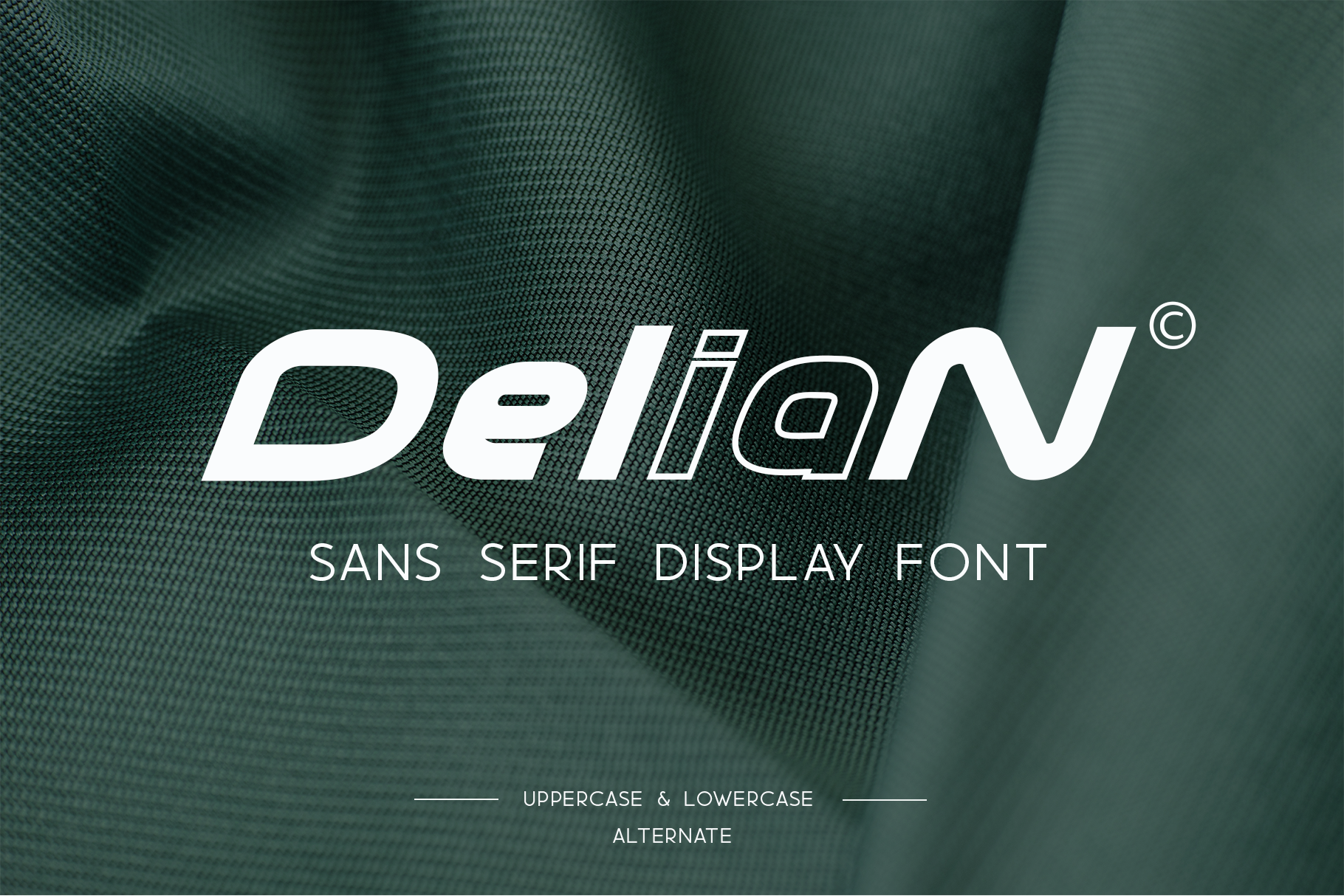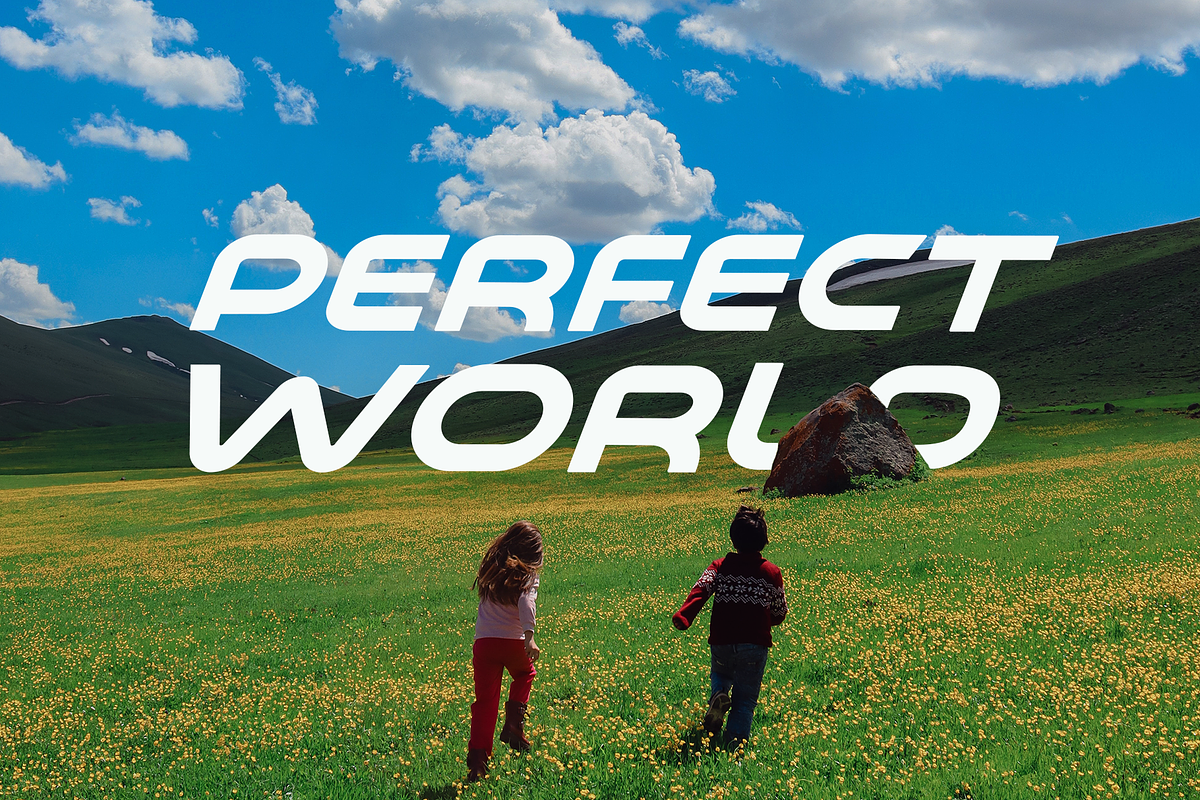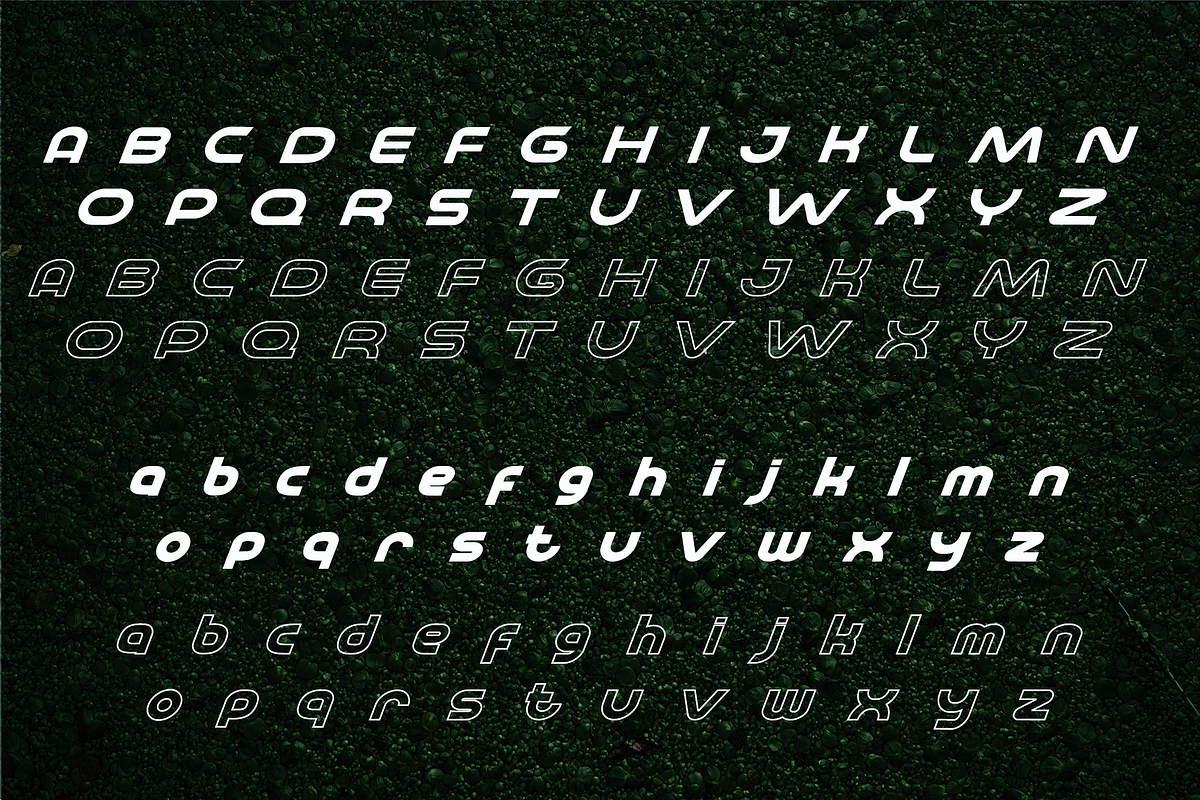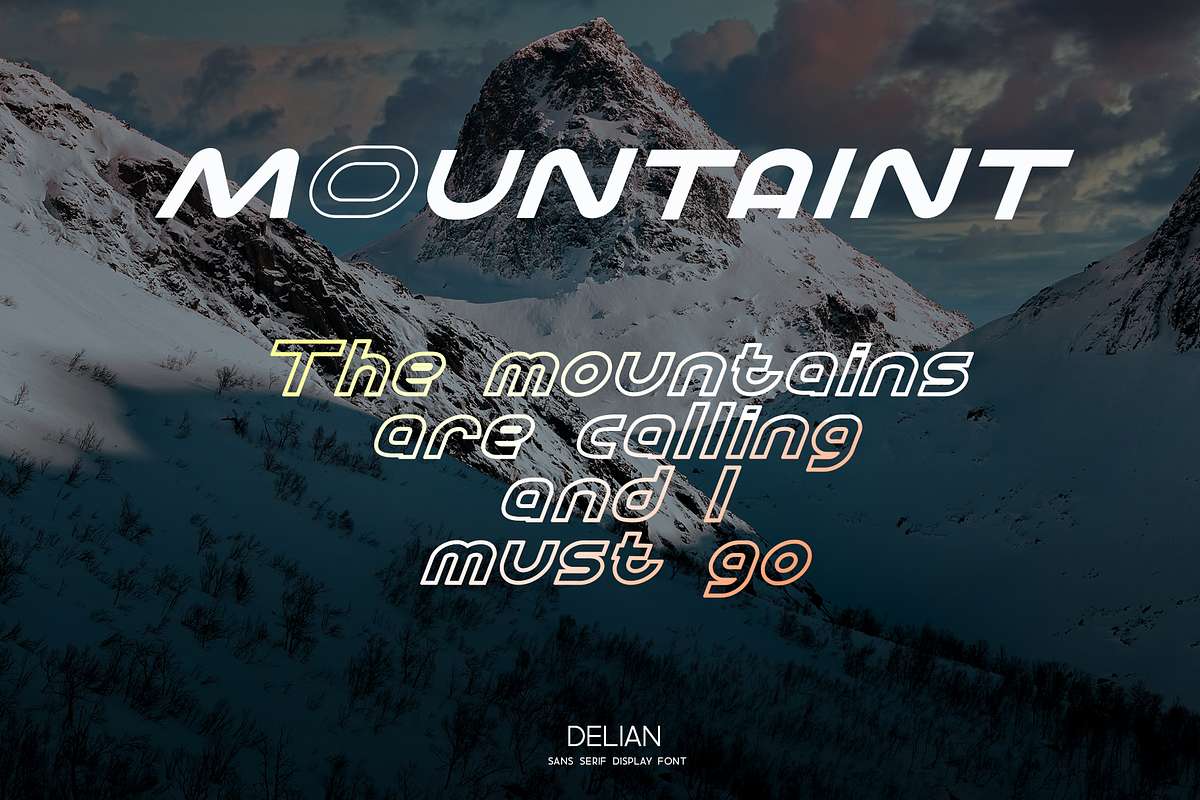
Delian - Sans Serif Font
Introducing Delian, a simple modern sans serif font. So perfect for you who needs a typeface for logo designs, magazine, social media, brochure, and many more.